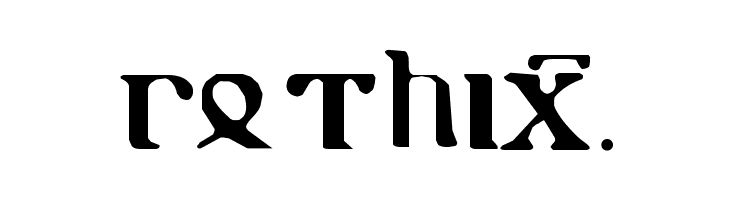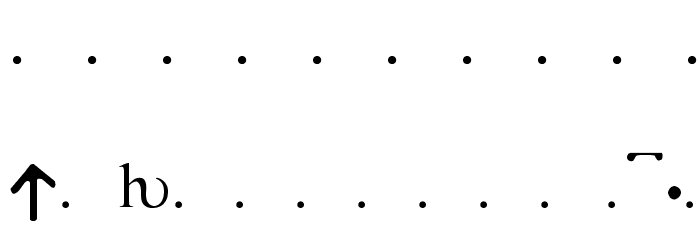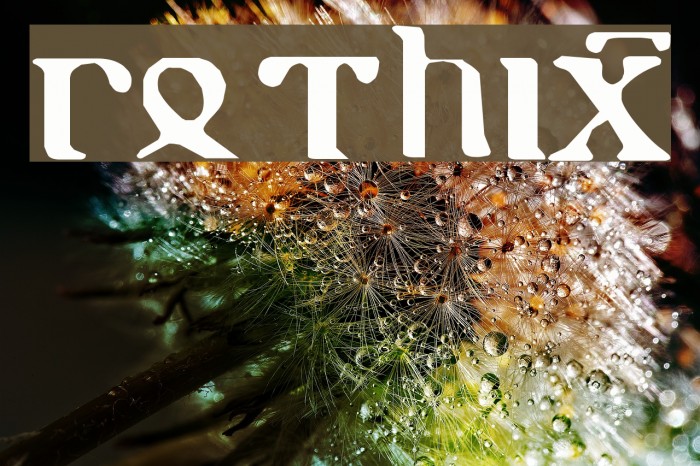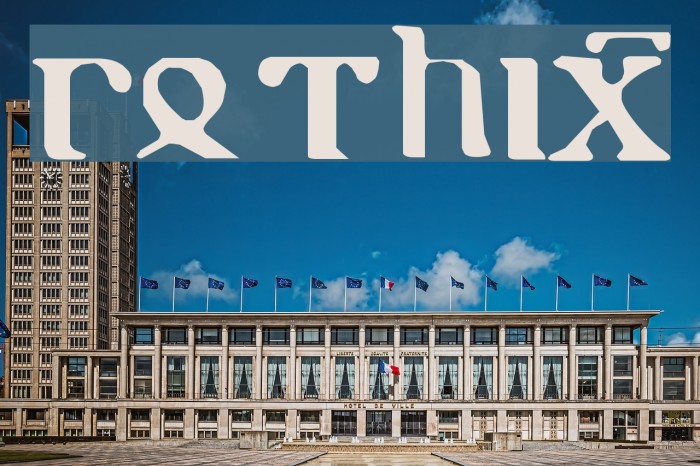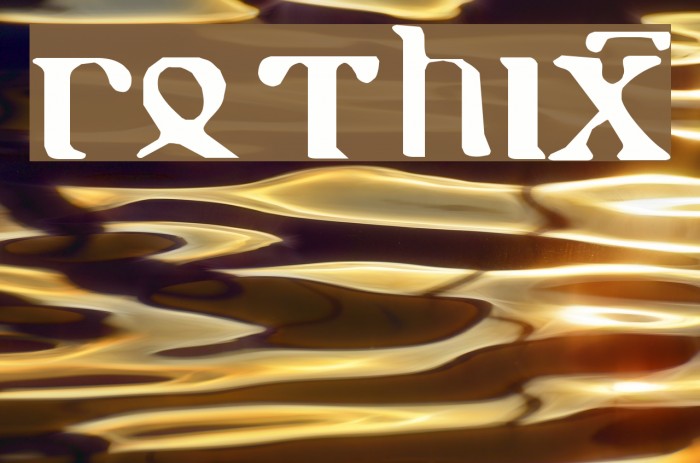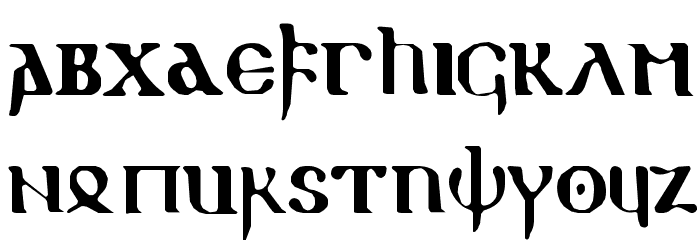
gothic-1 Font
This font exhibits a classic Gothic style with intricate, sharp edges and dramatic strokes. The uppercase letters are bold and commanding, featuring pointed serifs and a medieval aesthetic. The lowercase letters maintain the same stylistic elements, with a slightly more condensed form, adding to the overall ornate appearance. The numbers and special characters are consistent with the Gothic theme, offering a cohesive look across all characters. This font is ideal for projects that require a historical or fantasy element, providing a sense of grandeur and tradition.
A bold, Gothic-style font with sharp edges and dramatic strokes.
• Proposed Projects: Ideal for historical or fantasy-themed projects, book covers, posters, and branding that requires a traditional or medieval touch.
• Category: Blackletter
• Overall Style: Vintage
• Use Case: Headlines, Logos, Decorative text